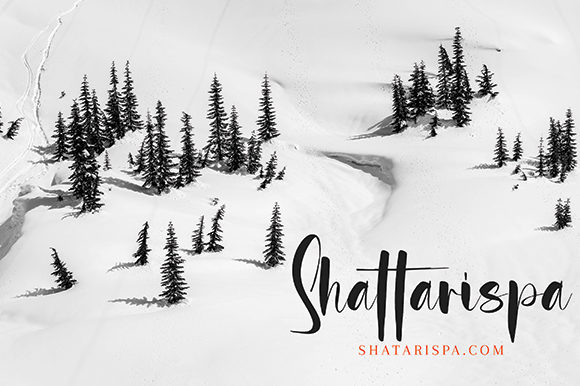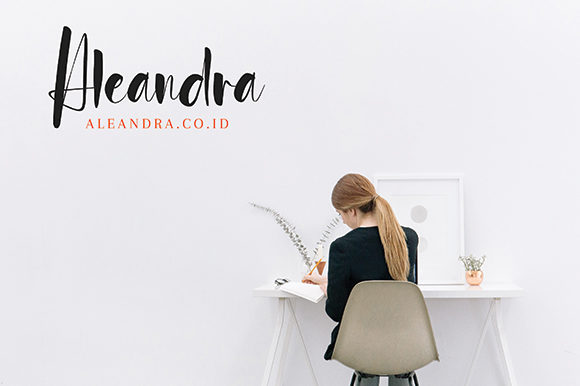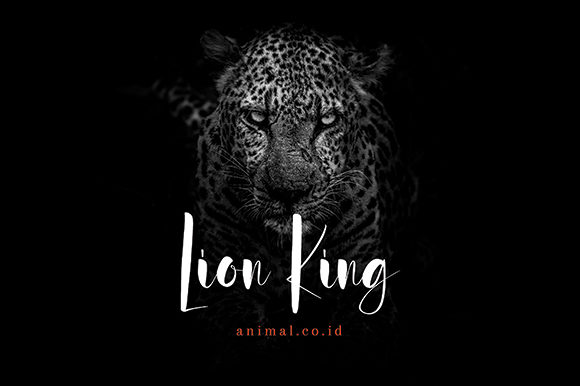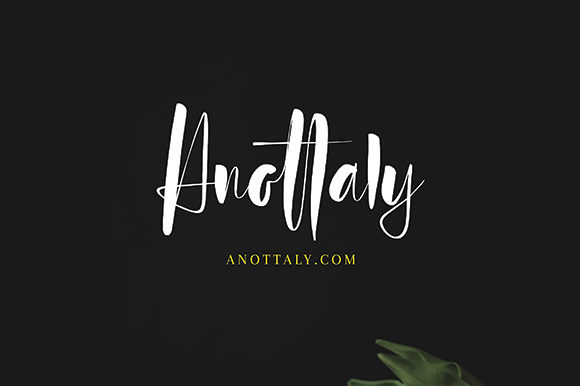
Antayha Font
About Antayha Font
Antayha is a sweet and friendly handwritten font. Its natural and unique style makes it incredibly fitting to a large pool of designs. The only limit is your imagination!